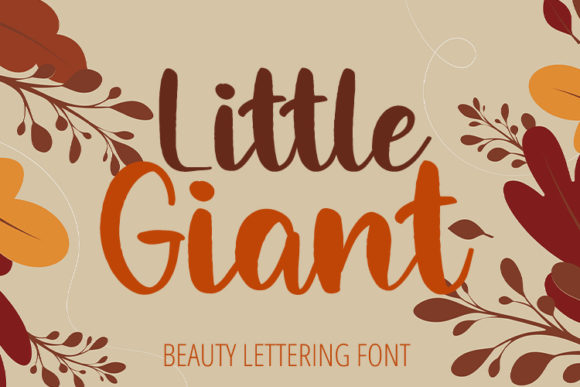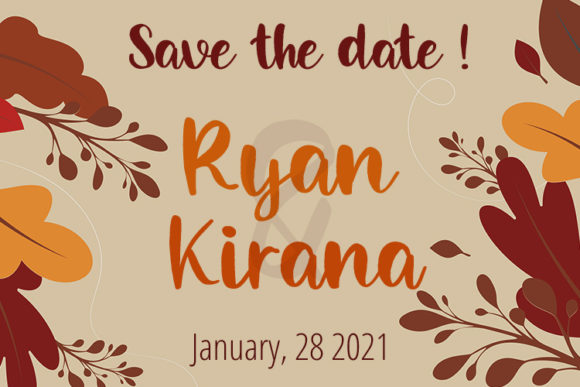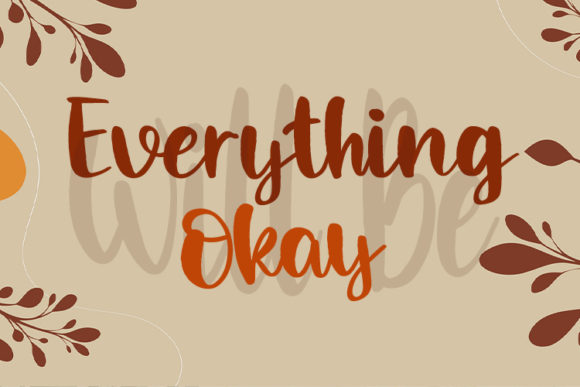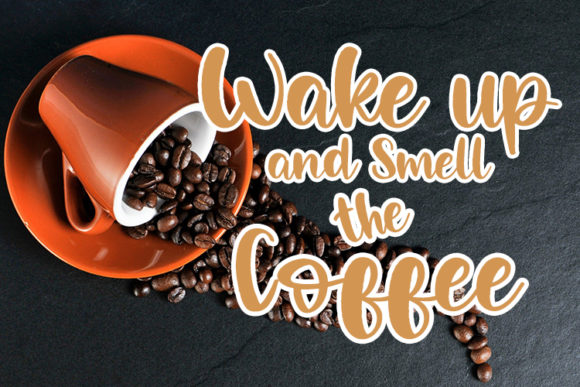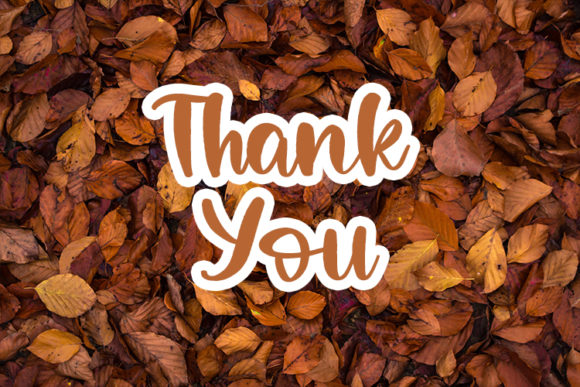
Little Giant Font
About Little Giant Font
Little Giant is a sweet and friendly handwritten font. Its natural and unique style makes it incredibly fitting to a large pool of designs.